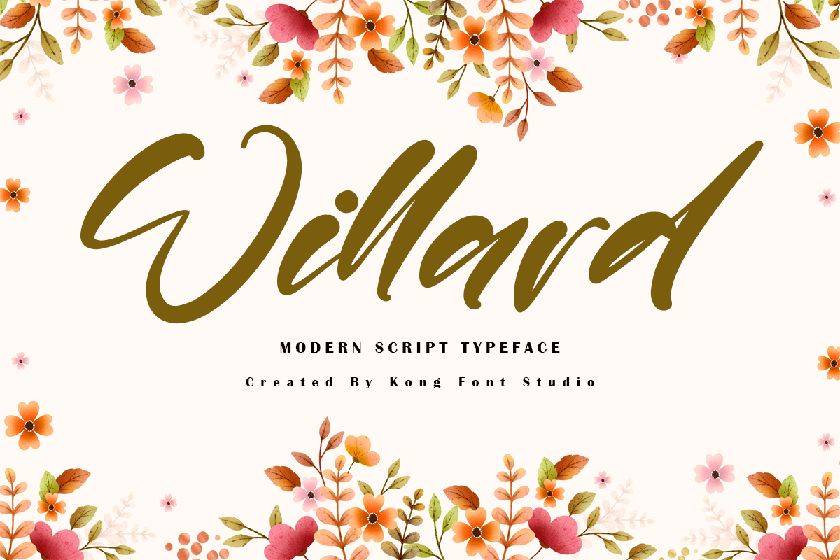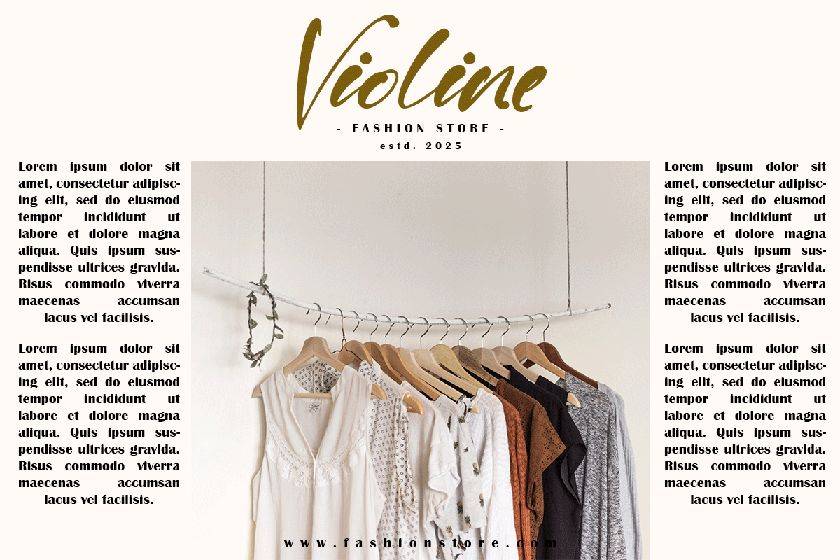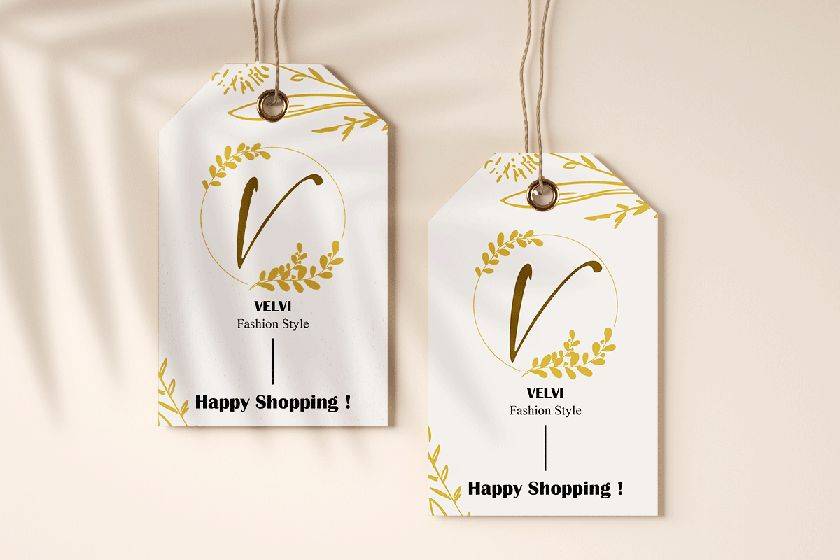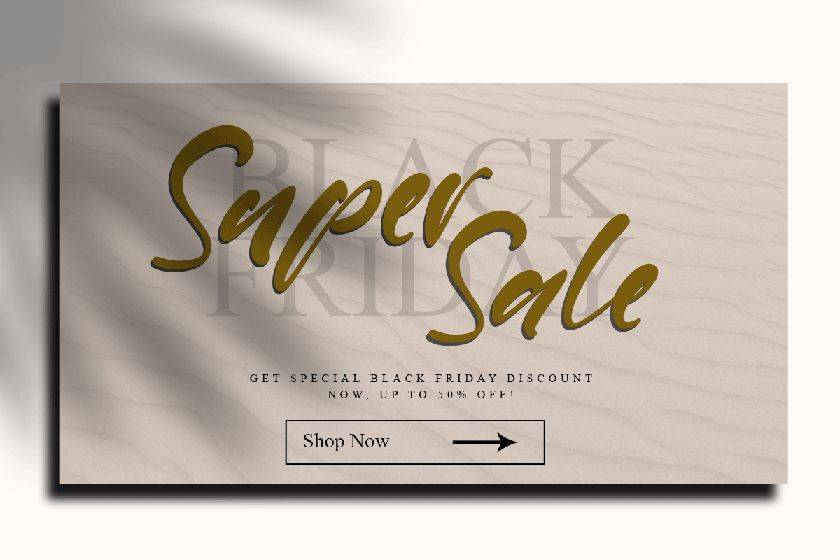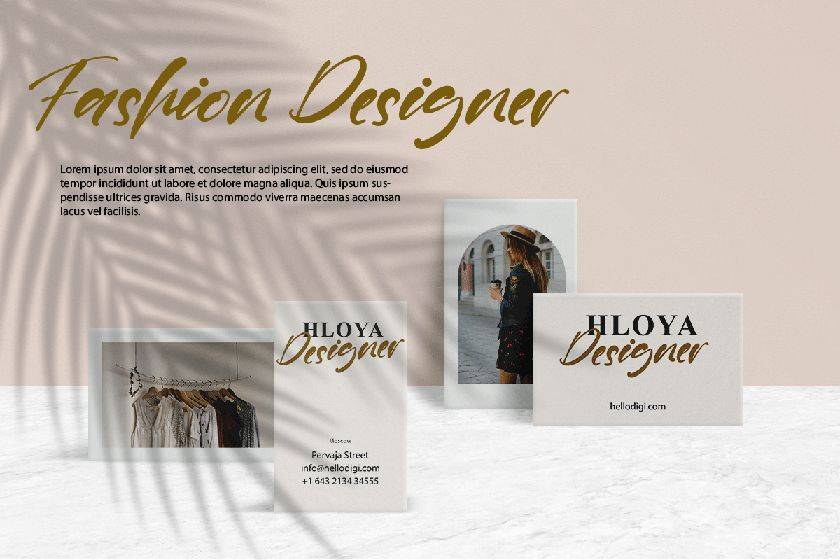
Willard is a lively and expressive script font featuring bold, brush-like strokes with varied thickness that give it an energetic and handcrafted feel. Its dynamic letterforms and casual style make it ideal for creative headlines, branding, and invitations where a personal and artistic touch is desired. This font works best in projects that want to convey a sense of personality and spontaneity while maintaining clear legibility.
Willard Font
About Willard Font
| Font family | Willard Font |